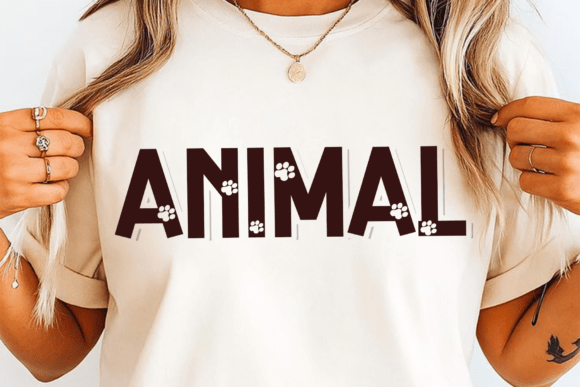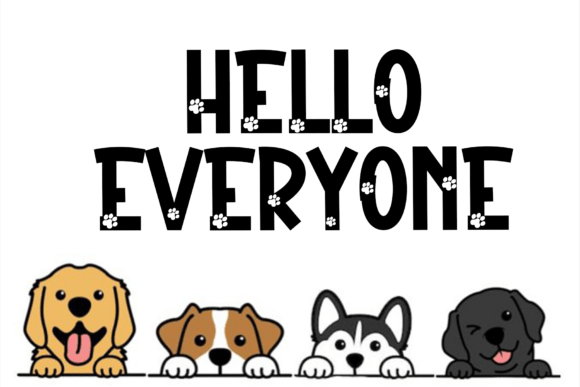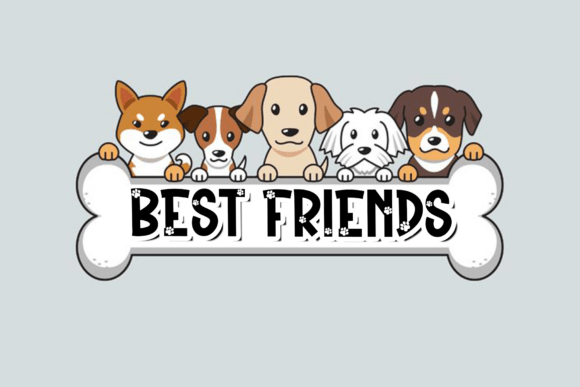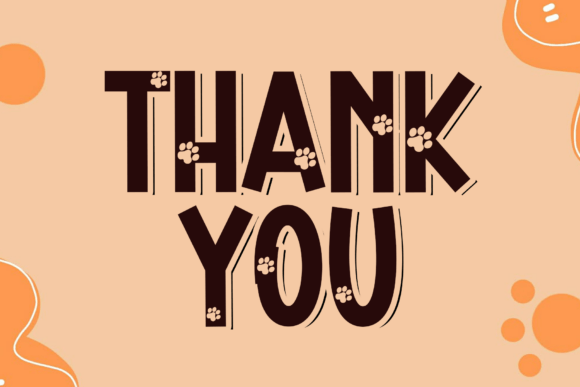
Cute Doggy Font: The Perfect Addition to Your Creative Projects
Are you a designer, crafter, or DIY enthusiast looking for a font that can add a touch of personality to your projects? Look no further than the Cute Doggy font! This minimal and neat font is perfect for a wide range of creative endeavors, from crafting and scrapbooking to graphic design and digital art. In this article, we’ll explore the features and benefits of the Cute Doggy font, and show you how it can make your projects stand out.
What is Cute Doggy Font?
Cute Doggy is a unique and charming font that is sure to capture the hearts of designers and crafters alike. With its clean and simple design, this font is incredibly versatile and can be used in a variety of contexts. Whether you’re creating a handmade card, a digital graphic, or a craft project, Cute Doggy is the perfect choice.
Key Features of Cute Doggy Font
- Minimal and Neat Design: The Cute Doggy font features a simple and uncluttered design that is easy to read and looks great in a variety of contexts.
- Highly Versatile: This font can be used in a wide range of projects, from crafting and scrapbooking to graphic design and digital art.
- Easy to Pair: Cute Doggy can be easily paired with a variety of other fonts to create a unique and eye-catching look.
Benefits of Using Cute Doggy Font
So why choose the Cute Doggy font for your next project? Here are just a few benefits of using this amazing font:
- Adds Personality to Your Projects: The Cute Doggy font adds a touch of whimsy and personality to your projects, making them stand out from the crowd.
- Easy to Read: The clean and simple design of this font makes it easy to read, even at small sizes.
- Perfect for Crafting and DIY Projects: Cute Doggy is a great choice for crafters and DIY enthusiasts who want to add a personal touch to their projects.
How to Use Cute Doggy Font in Your Projects
Using the Cute Doggy font in your projects is easy! Here are a few ideas to get you started:
- Crafting and Scrapbooking: Use Cute Doggy to add a personal touch to your handmade cards, scrapbook pages, and other crafting projects.
- Graphic Design: This font is perfect for graphic design projects, such as creating logos, brochures, and social media graphics.
- Digital Art: Add a touch of personality to your digital art projects, such as illustrations and paintings, with the Cute Doggy font.
Tips for Pairing Cute Doggy Font with Other Fonts
One of the best things about the Cute Doggy font is how easily it pairs with other fonts. Here are a few tips for pairing Cute Doggy with other fonts:
- Pair with Bold Fonts: Pair Cute Doggy with a bold font for a striking contrast that adds visual interest to your projects.
- Pair with Script Fonts: Pair Cute Doggy with a script font for a feminine and elegant look that’s perfect for crafting and scrapbooking projects.
- Experiment with Different Font Combinations: Don’t be afraid to experiment with different font combinations to find the perfect pairing for your project.
In conclusion, the Cute Doggy font is a versatile and charming font that is perfect for a wide range of creative projects. With its minimal and neat design, this font is easy to read and looks great in a variety of contexts. Whether you’re a designer, crafter, or DIY enthusiast, Cute Doggy is a great choice for adding a touch of personality to your projects. So why wait? Download the Cute Doggy font today and see how it can make your projects stand out!